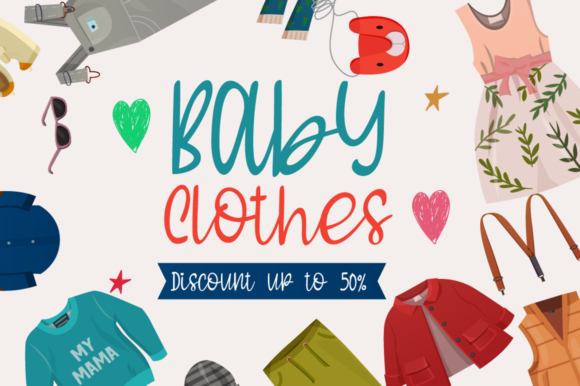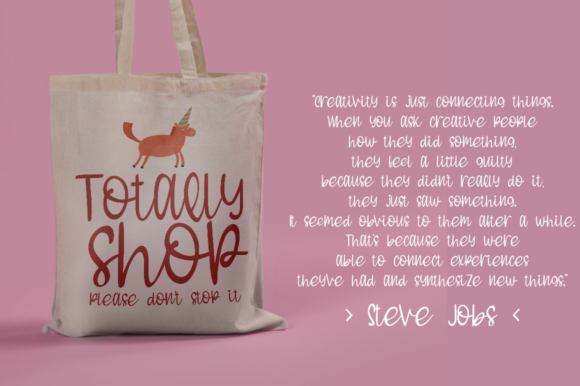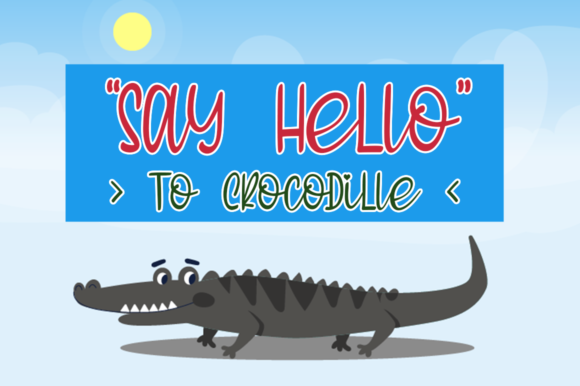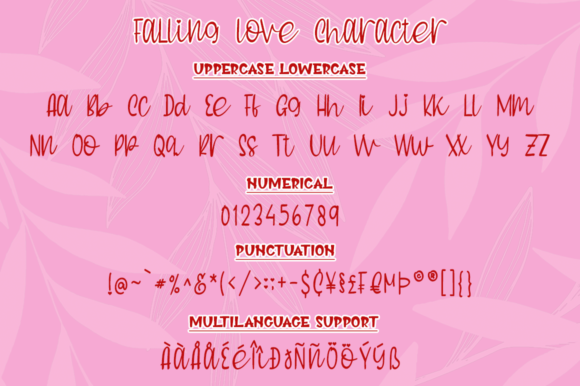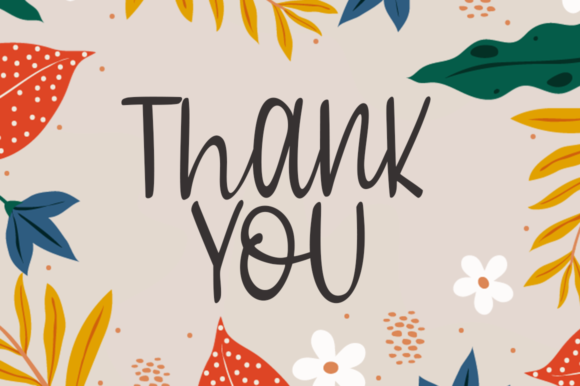
The Magic of Falling Love Font: Elevate Your Designs with Romance
I’ll never forget the time I was working on a wedding invitation project, and my client asked me to add a touch of elegance and romance to the design. I scoured the internet for the perfect script font, but nothing seemed quite right. That was until I stumbled upon Falling Love Font. This gorgeous script is full of life, and it instantly added a romantic spark to my project. In this article, I’ll share my experience with Falling Love Font, its features, and how to make the most of it in your designs.
An Honest Review of Falling Love Font
Falling Love Font has quickly become one of my go-to fonts for romantic and elegant designs. Here’s what I love about it:
- ✨ Beautifully crafted script with a lively feel
- ✅ Extensive character set, including accented characters and punctuation
- ✅ Perfect for a variety of design projects, from wedding invitations to branding and packaging
While Falling Love Font is an excellent choice, it’s not without its quirks:
- ⚠️ Some users may find the font a bit too ornate for certain projects
- 🤔 Limited availability of certain OpenType features in certain software
The Story Behind Falling Love Font
Falling Love Font was designed with romance in mind. The designer wanted to create a font that would capture the feeling of falling in love, with all its excitement and nervousness. The result is a font that’s both elegant and playful, perfect for designs that need a touch of romance.
| Font Name | Falling Love Font |
| Author | Haksen |
| What is Falling Love Font? | Falling Love Font is a beautiful script font designed for romantic and elegant designs. |
| Does Falling Love Font support OpenType features? | Yes, Falling Love Font supports OpenType features, including ligatures and stylistic alternates. |